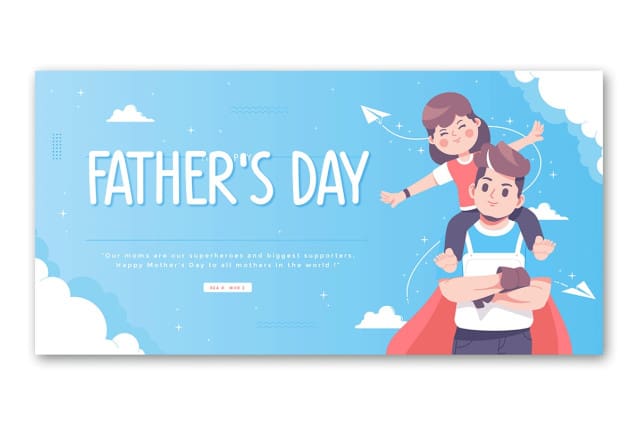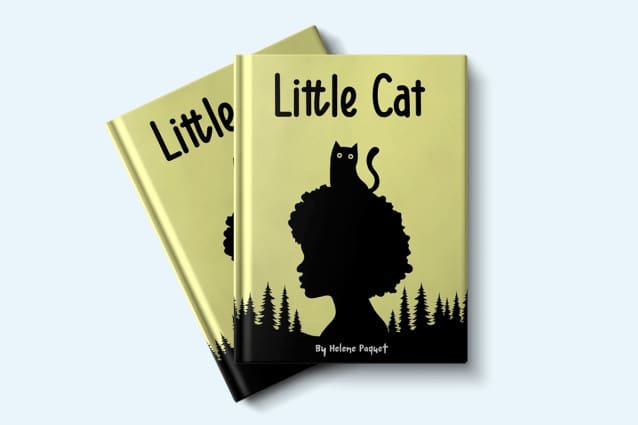
Little Moony Font
Little Moony Font, a modern kids font designed to bring a touch of whimsy and joy to your projects. With its playful and friendly letterforms, Little Moony is perfect for capturing the imagination and creativity of children, making it an ideal choice for kids’ books, educational materials, playful branding, and fun posters.
Little Moony is crafted to provide excellent readability while maintaining a charming and engaging appearance. Its rounded edges and cheerful style make it appealing to both kids and adults, adding a delightful touch to any design.
This typeface includes a full set of uppercase and lowercase letters, numerals, punctuation marks, and special characters, ensuring you have everything you need to bring your creative ideas to life. Whether you’re designing a colorful classroom poster, an inviting children’s book cover, or a vibrant party invitation, Little Moony adds the perfect amount of fun and personality.
Brighten your designs with the enchanting spirit of Little Moony, and let your projects shine with playful elegance and modern flair.